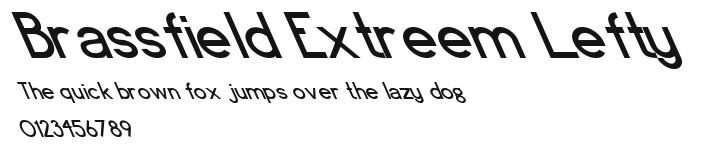
• Font Name: Brassfield Extreem Lefty
• Full Font Name: Brassfield Extreem Lefty
About Brassfield Extreem Lefty.ttf
Brassfield Extreem Lefty.ttf is a modern, elegant sans-serif font designed for ultimate readability and visual harmony. Perfect for branding, headlines, web design, and print materials.